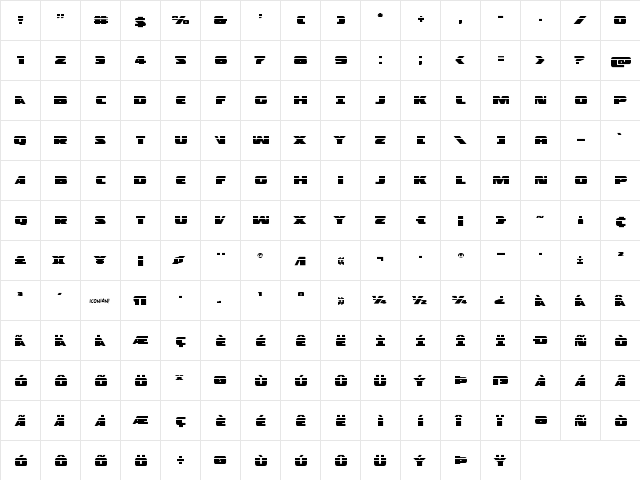
Police Cruiser Laser Regular
Design Context for Police Cruiser Laser Typeface
Police Cruiser Laser is a composed and adaptable typeface that performs quietly and consistently across a wide range of design contexts.